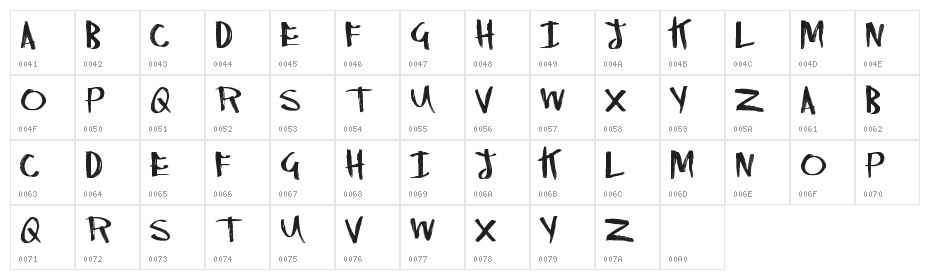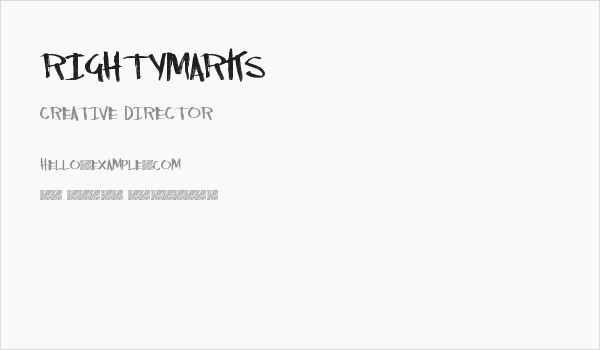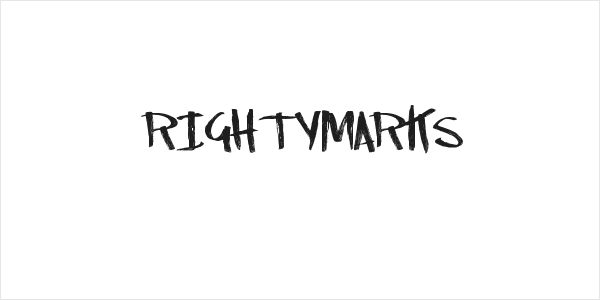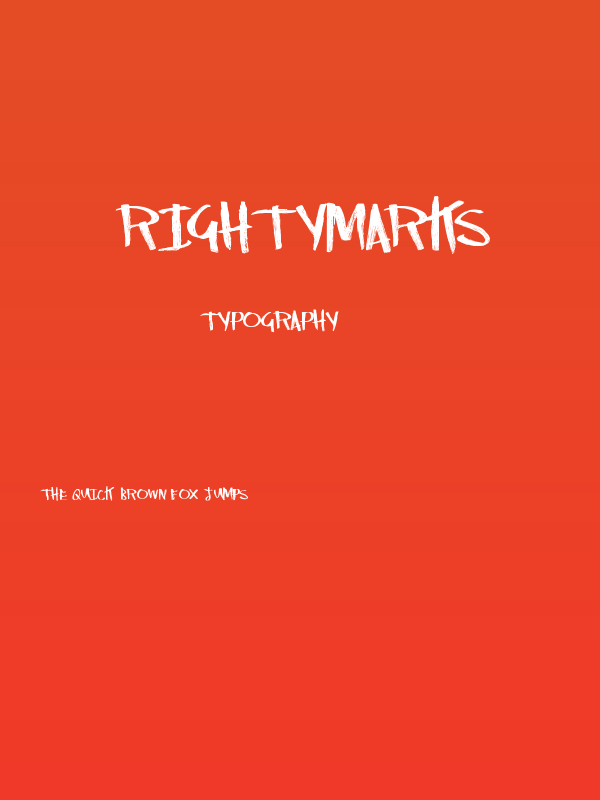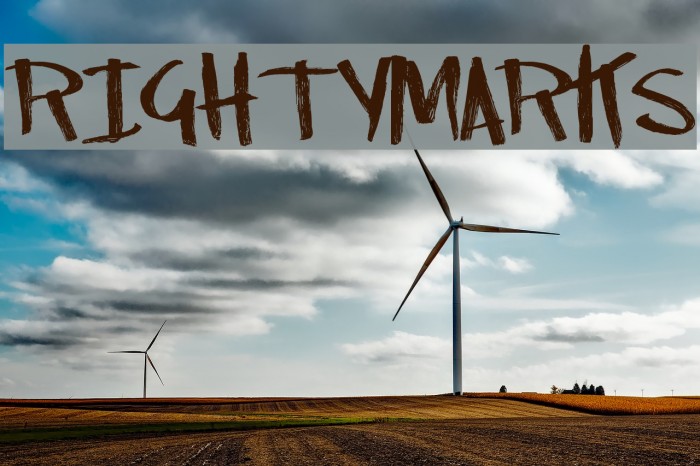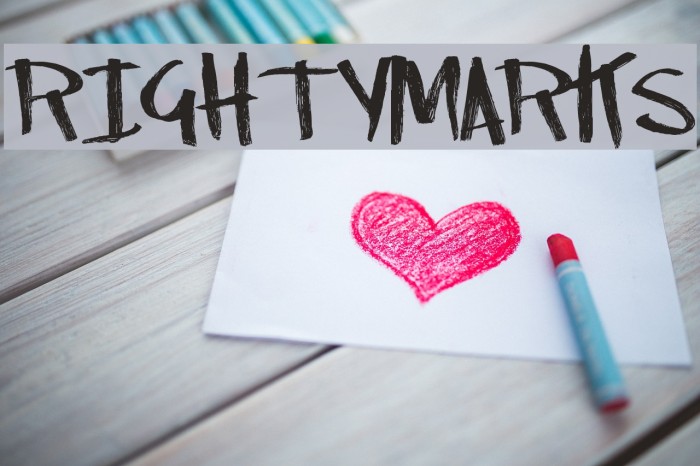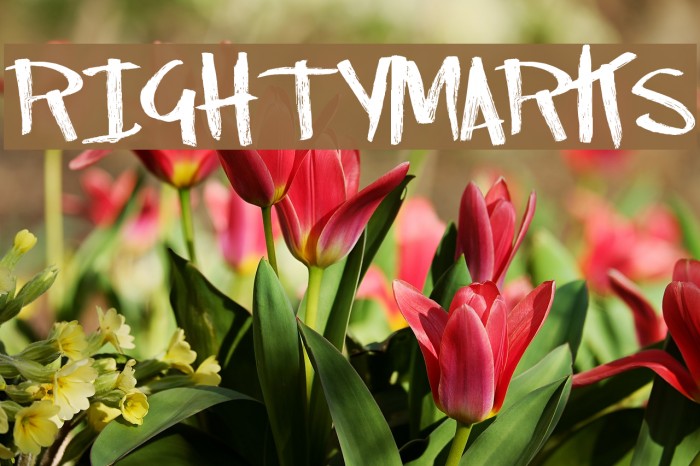
RightyMarks Font
RightyMarks Description
This font features a bold and expressive handwritten style, characterized by its rough, textured strokes that mimic the look of brush or marker writing. The uppercase letters are dynamic and slightly irregular, giving a sense of movement and energy. The lowercase letters maintain the same energetic style, with a playful and casual appearance. The numbers and special characters follow the same design principles, ensuring consistency across all glyphs. This font's unique style makes it stand out, perfect for projects that require a personal and artistic touch.